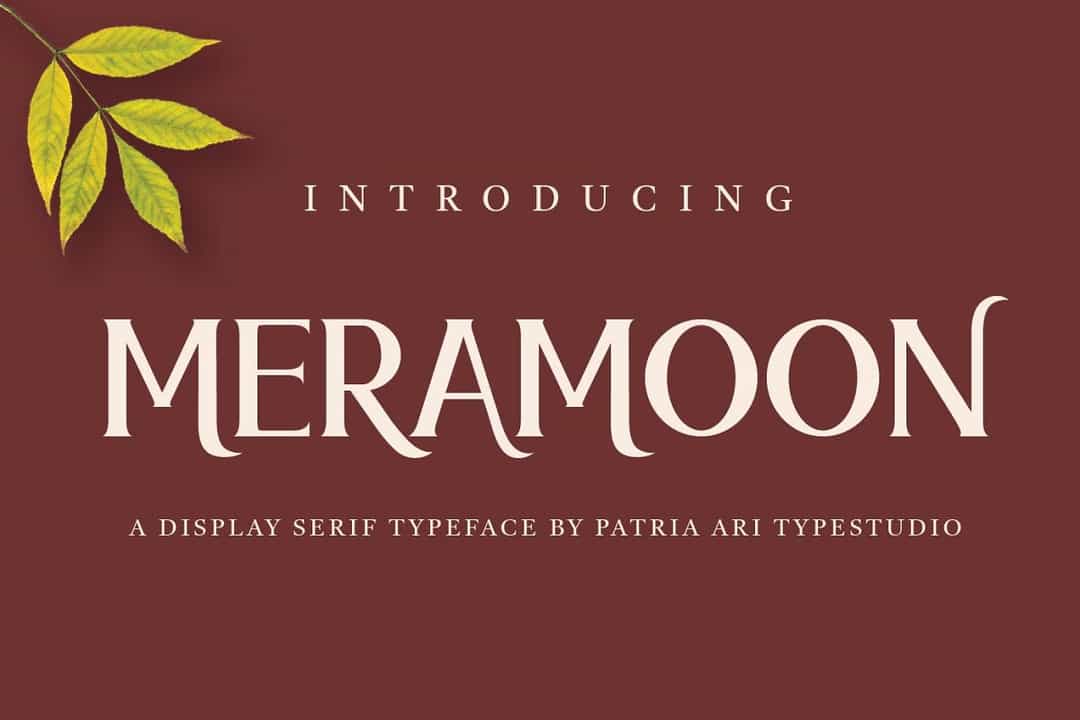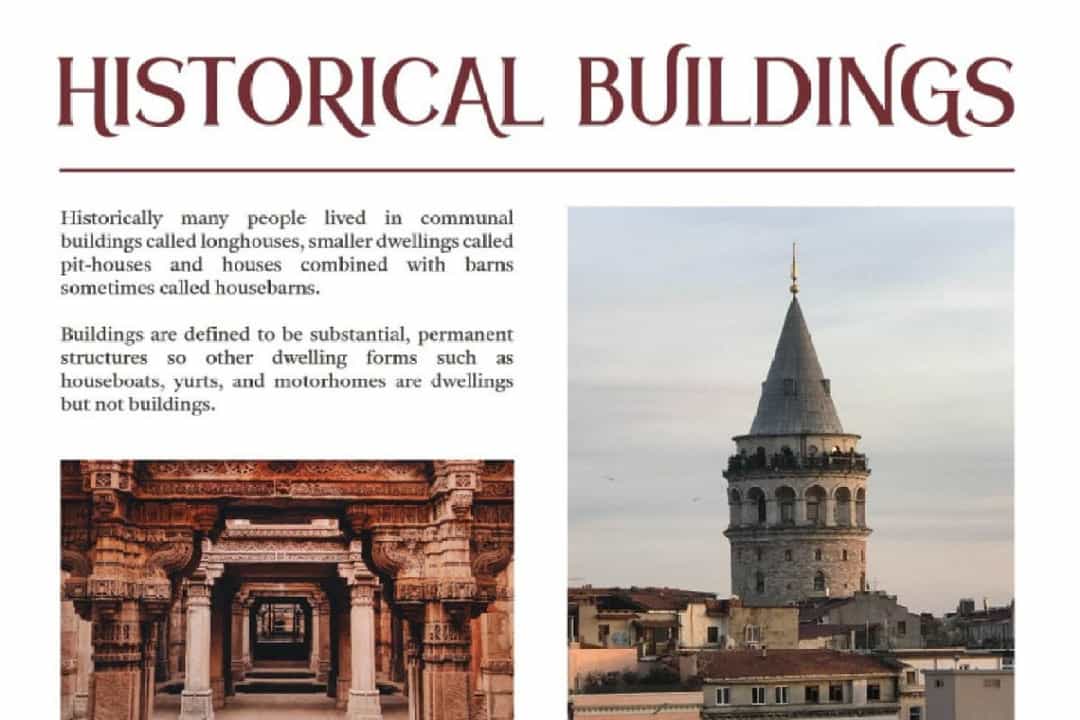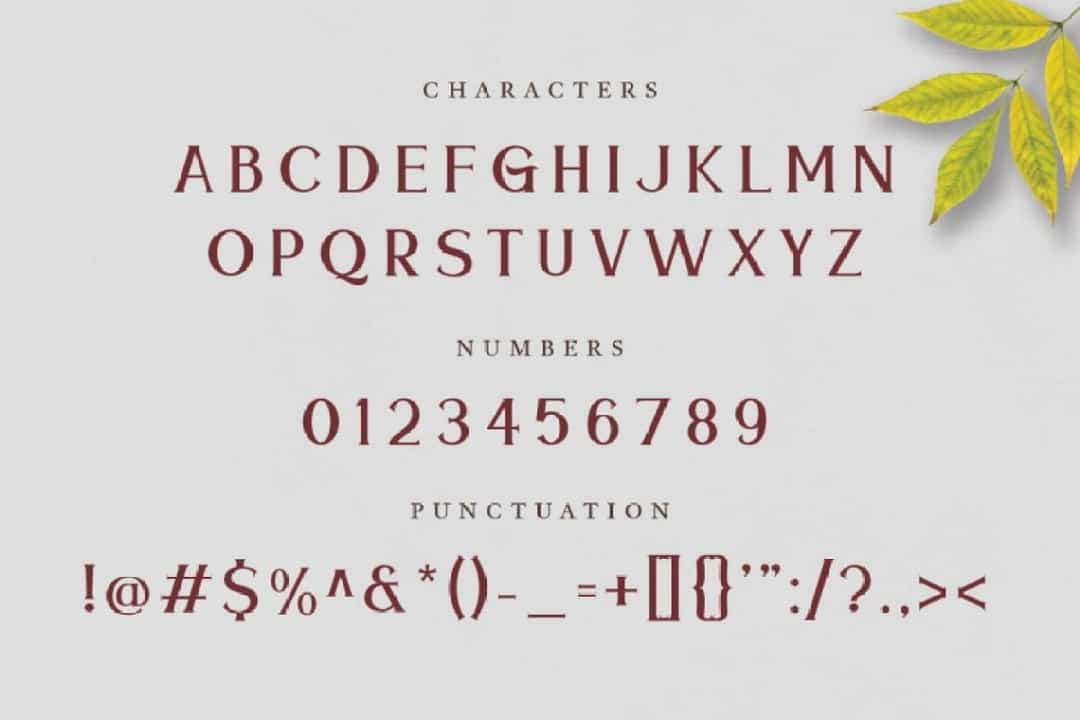
Meramoon is a sophisticated modern display serif typeface, which contains beautiful characters designed as alternatives to the default ones. Meramoon can be used for branding, logo and social media post advertising campaigns, product packaging design, labels for products photographs taken with watermarks as well as invitations, stationery projects or any other purpose you require it for.